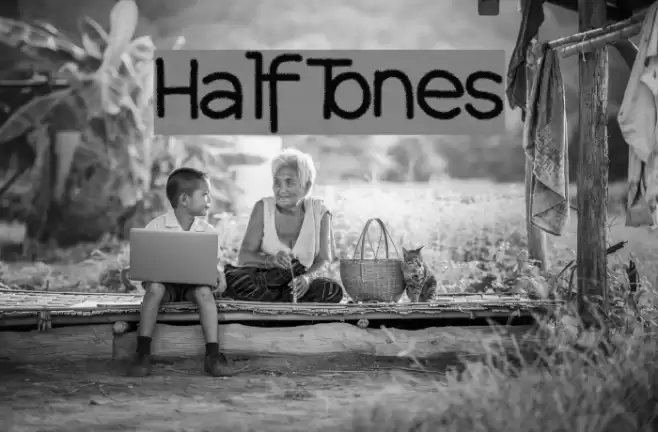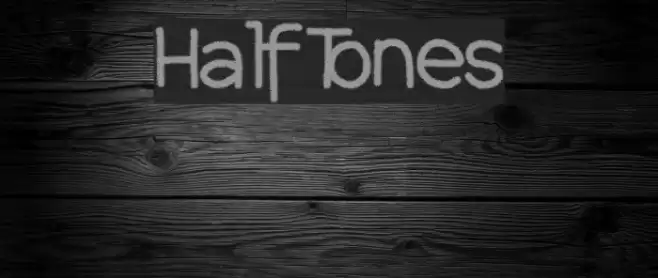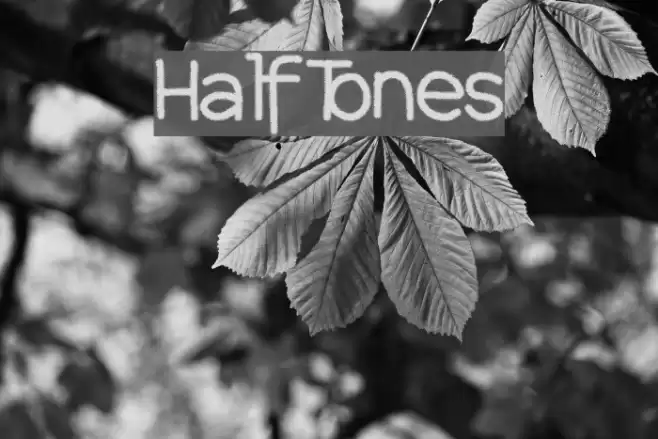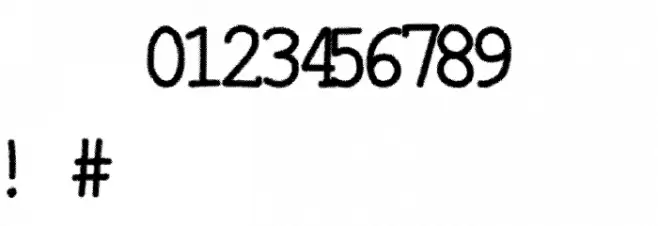
HalfTones Font
HalfTones Description
This font features a playful and slightly irregular style, reminiscent of hand-drawn lettering. The characters have a casual, friendly appearance with rounded edges and a consistent stroke width. The uppercase and lowercase letters maintain a cohesive look, while the numerals and special characters complement the overall design. The font's informal nature makes it suitable for creative and lighthearted projects.
A playful, hand-drawn style font with rounded edges from Distorted Eroded fonts.
- Proposed Projects: Ideal for children's books, greeting cards, posters, and casual branding.
- Overall Style: Casual
- Use Case: Headlines, Logos, Informal Text